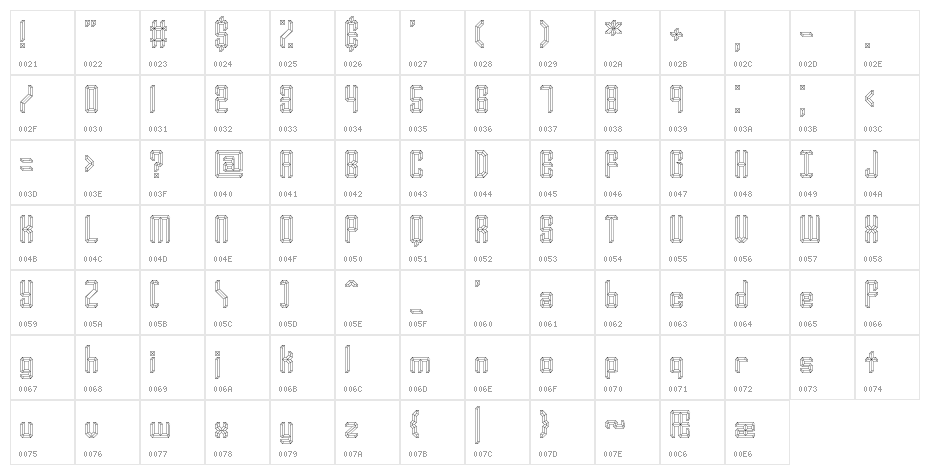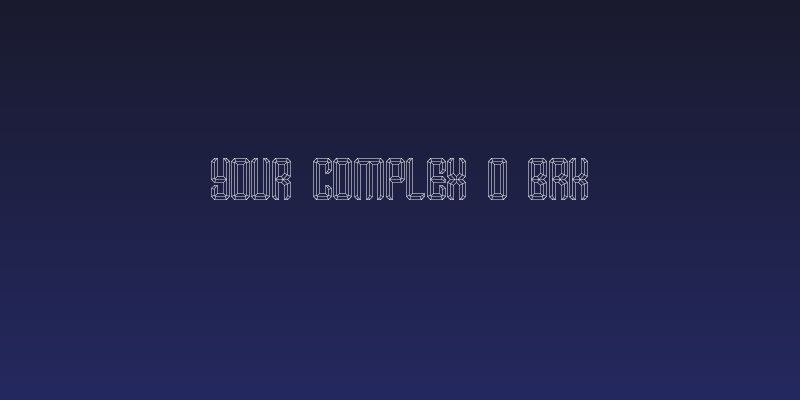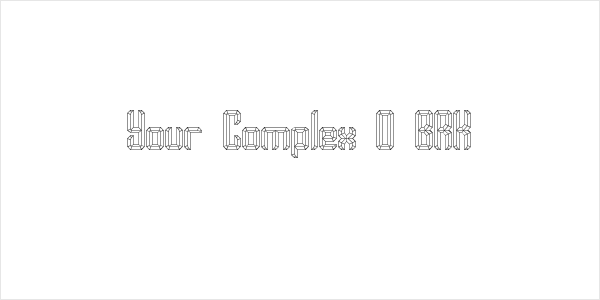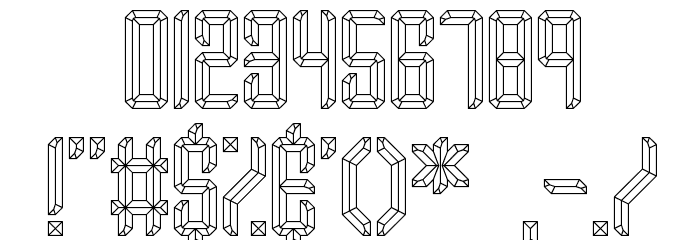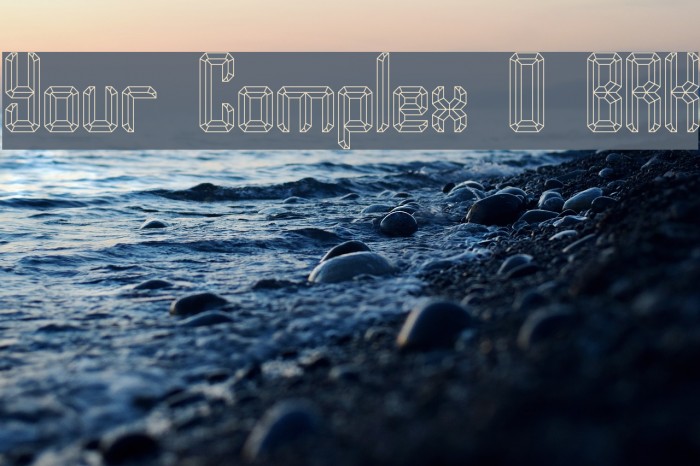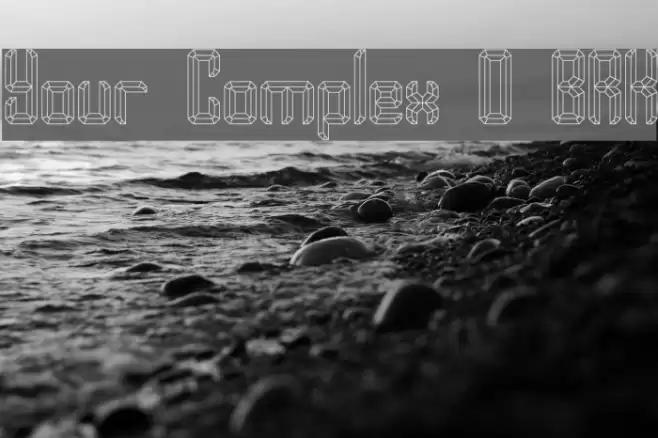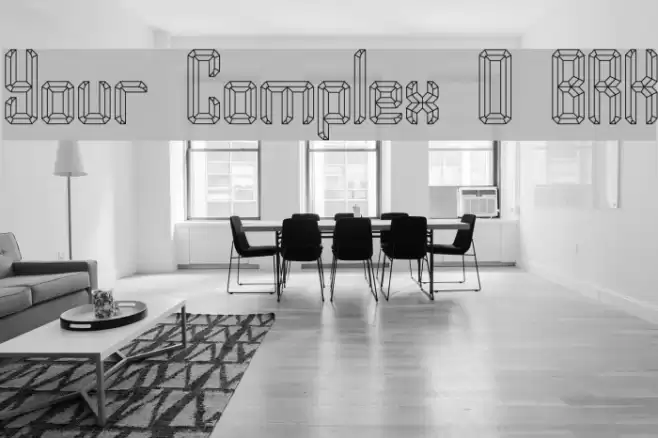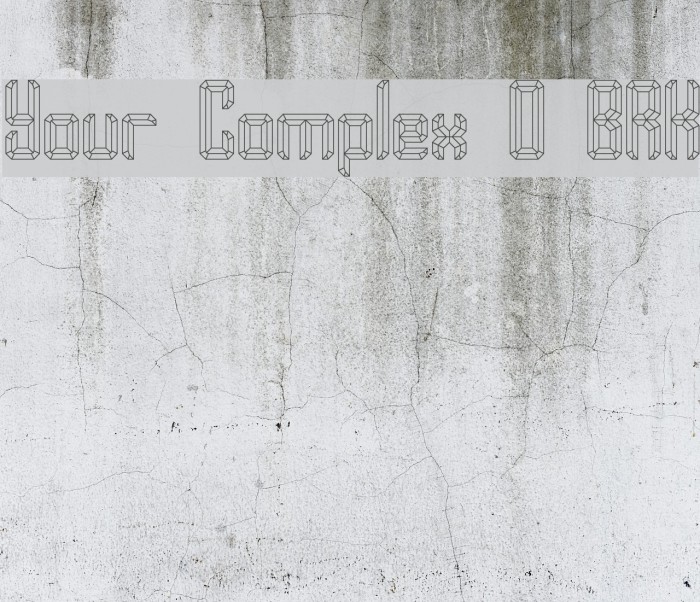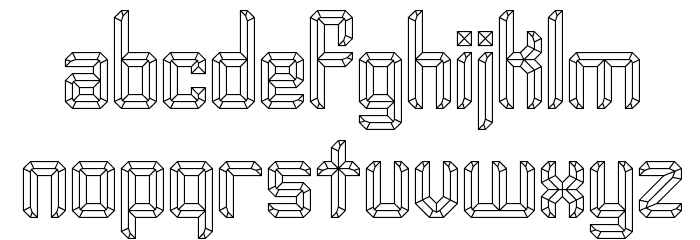
Your Complex O BRK Font
Your Complex O BRK Description
This font features a highly decorative and geometric style, characterized by its three-dimensional, block-like appearance. Each character is constructed with a series of angular lines and facets, giving it a crystal-like or gem-like effect. The uppercase and lowercase letters maintain a consistent design, with sharp edges and a sense of depth. Numbers and special characters follow the same intricate pattern, ensuring uniformity across the font. The overall aesthetic is bold and eye-catching, making it suitable for projects that require a strong visual impact.
| Overall Style | Modern, Futuristic |
| Proposed Projects | Ideal for logos, posters, video game graphics, and any project needing a striking, futuristic look. |